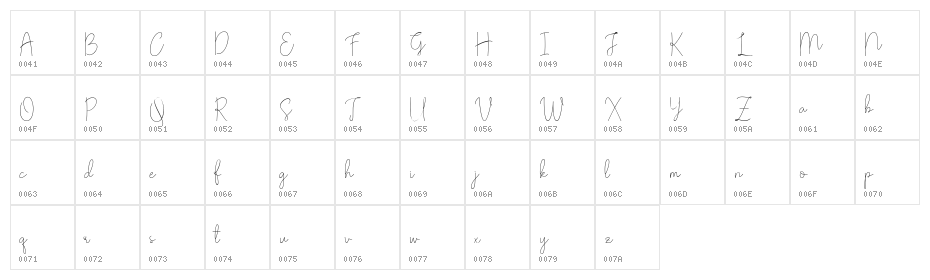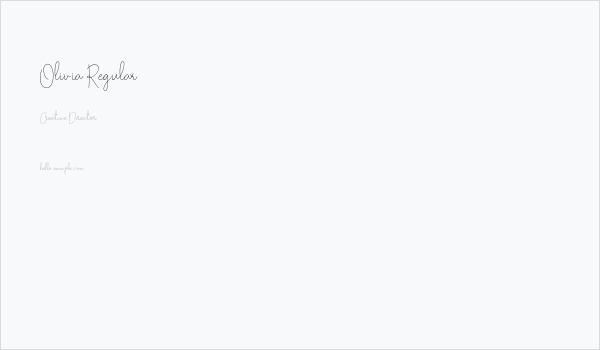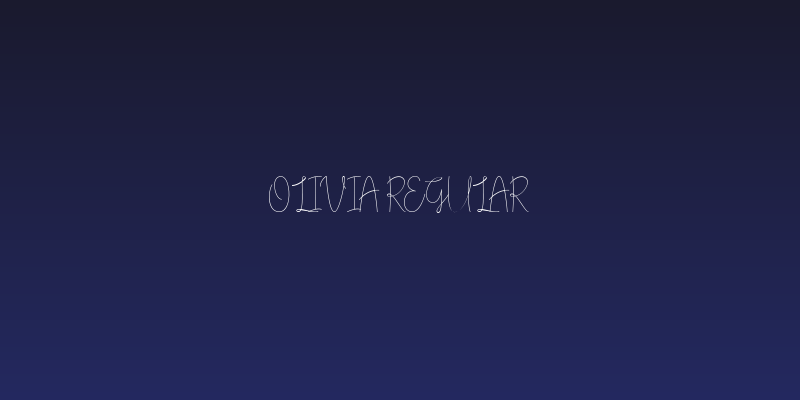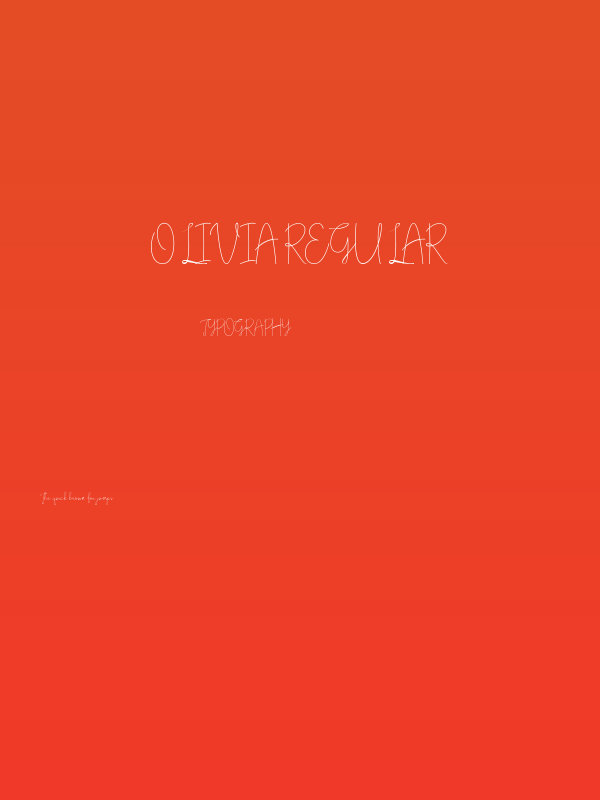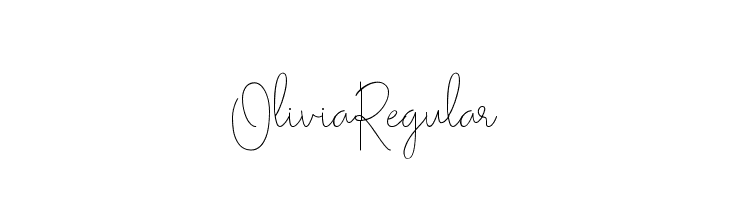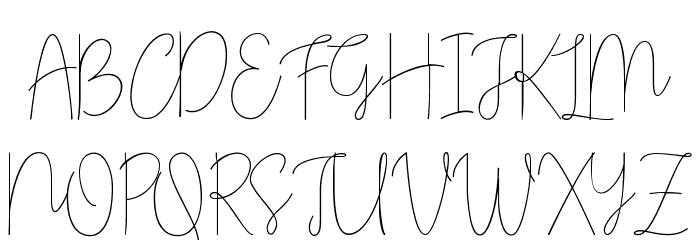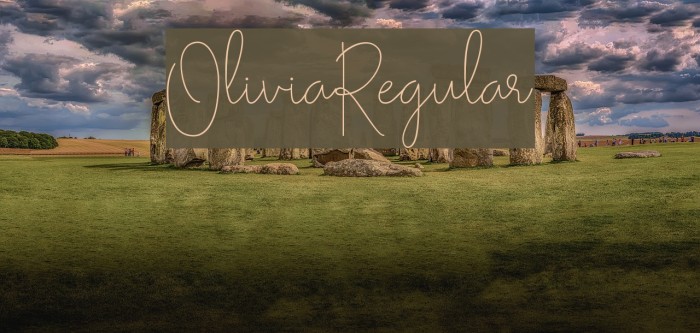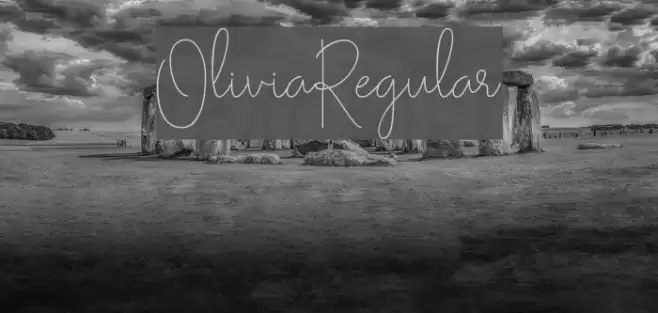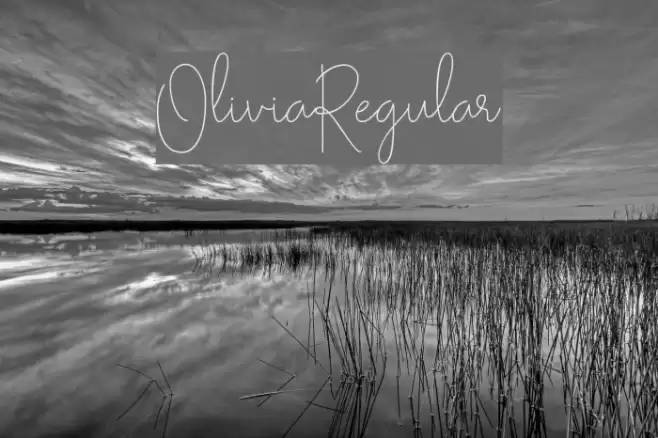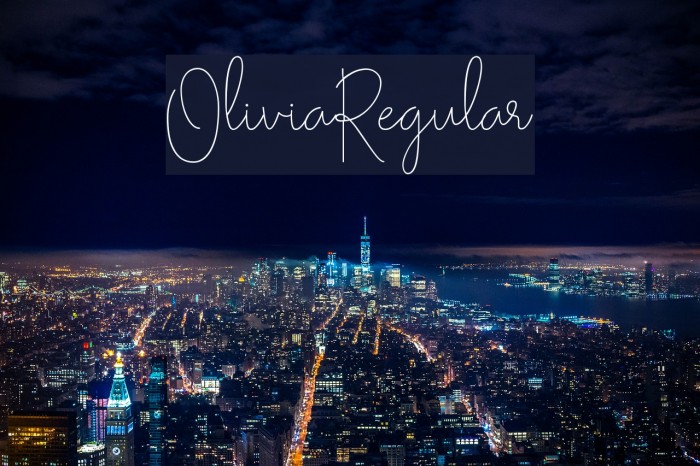
Olivia-Regular Font
Olivia-Regular Description
This font features a delicate and elegant handwritten style with thin, flowing lines that create a sense of grace and fluidity. The characters are slightly elongated, giving them a sophisticated and airy appearance. The uppercase and lowercase letters maintain a consistent style, with subtle variations in stroke width that add a touch of dynamism. The numerals and special characters are crafted with the same attention to detail, ensuring a cohesive look across all elements. This font is perfect for projects that require a personal and artistic touch, such as invitations, greeting cards, and branding materials.
| Overall Style | Elegant |
| Use Case | Invitations, Artistic projects, Branding |
| Proposed Projects | Ideal for wedding invitations, personal branding, greeting cards, and artistic projects. |